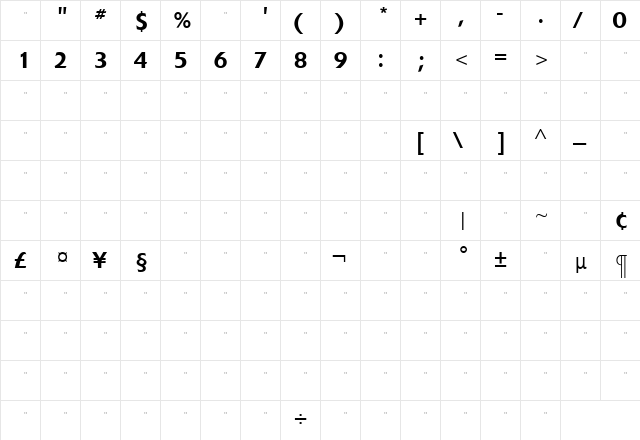
ExtensionMediumTab Roman
Design Context for ExtensionMediumTab Typeface
ExtensionMediumTab offers clean, dependable letterforms without strong stylistic allegiance, making it a practical choice for designers who need flexibility.